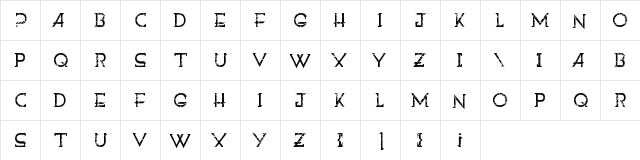
Paralyzed sky and moon Grunge
| Style | Grunge |
| Foundry | LJ-Design Studios |
| Designer | Luis Jaramillo |
Design Context for Paralyzed sky and moon Typeface
Paralyzed sky and moon trades polish for personality, using distressed and eroded forms to bring grit and attitude to creative work.
A strong fit for alternative music projects, graffiti-adjacent design, and anything that deliberately resists polish.
Pro Tip: Use Paralyzed sky and moon at larger sizes where the texture and irregularity of each letterform can be clearly seen — it loses its character at small sizes.